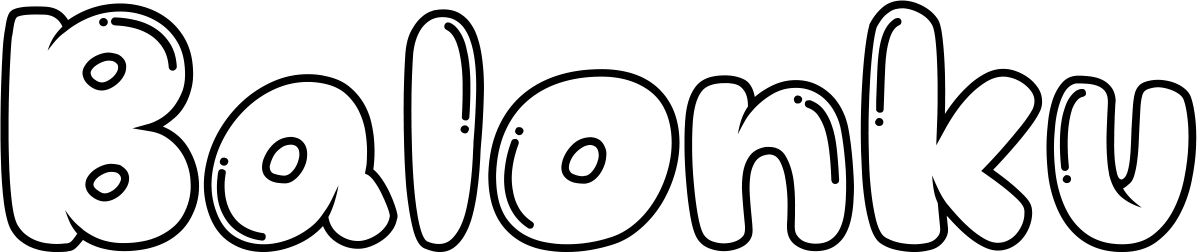
Balonku Font
Reflect the innocence and sweetness of childhood through your typography with nothing but this amazing cartoon font, Balonku. Inspired by bubbles, Balonku features happy vibes via its smooth and chunky letters and adds a cool and dreamy style to your design.
Since this bubble font is meant to dial up the creativity of your work, it proves to be a totally excellent choice for kids’ birthday party invitations, posters, children’s books, and more. Brilliant, right?
Fonts inspired by the form of soap bubbles or balloons. Cartoon, cute and childish nuance. Suitable for display fonts and decorations.